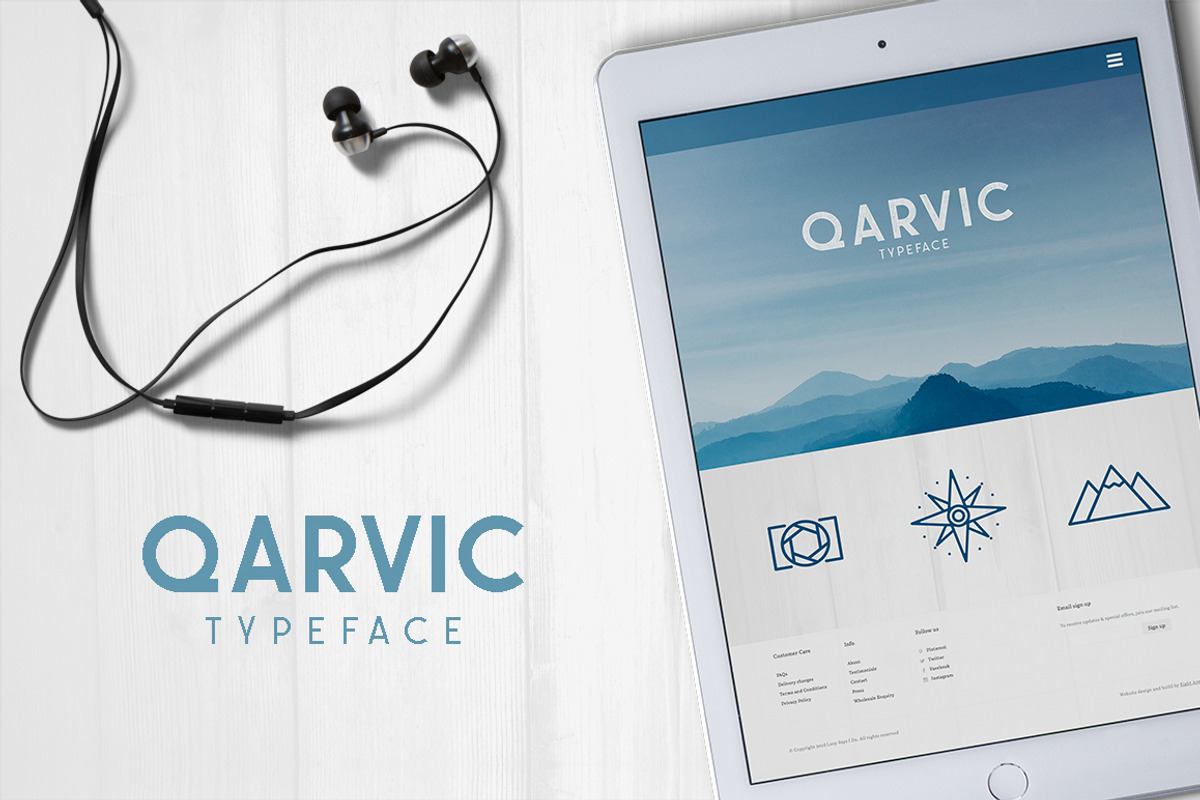
QARVIC Typeface Free Download
QARVIC Typeface Free Download is a sleek and modern sans serif font designed with a geometric foundation and a clean, minimalist look. Perfect for contemporary branding, tech startups, app interfaces, editorial layouts, and fashion-forward packaging, QARVIC offers a professional, stylish tone with excellent readability.
Its smooth curves and sharp lines give it a futuristic edge while maintaining a versatile structure that works across both headings and body text. Whether you're building a bold visual identity or crafting a polished digital layout, QARVIC adds clarity and sophistication to every element.